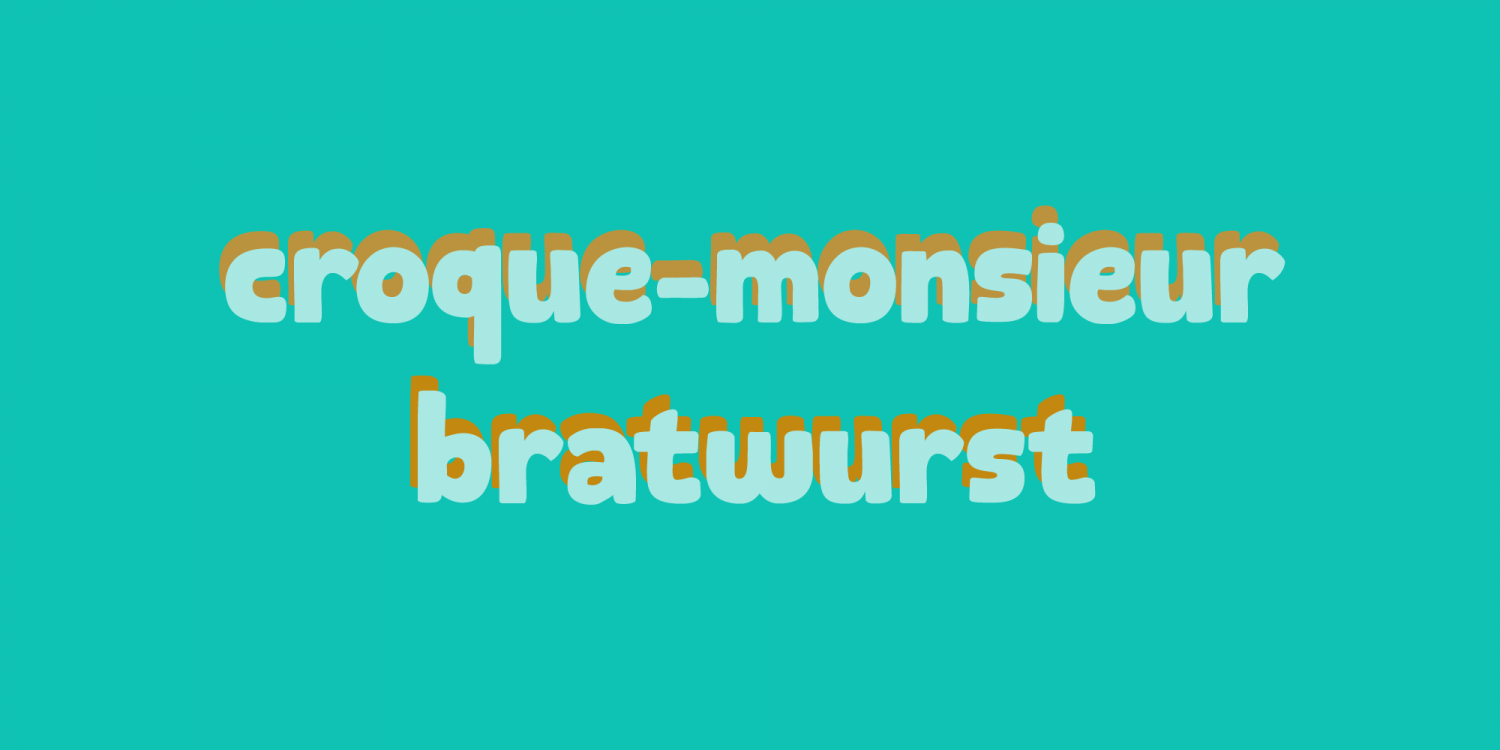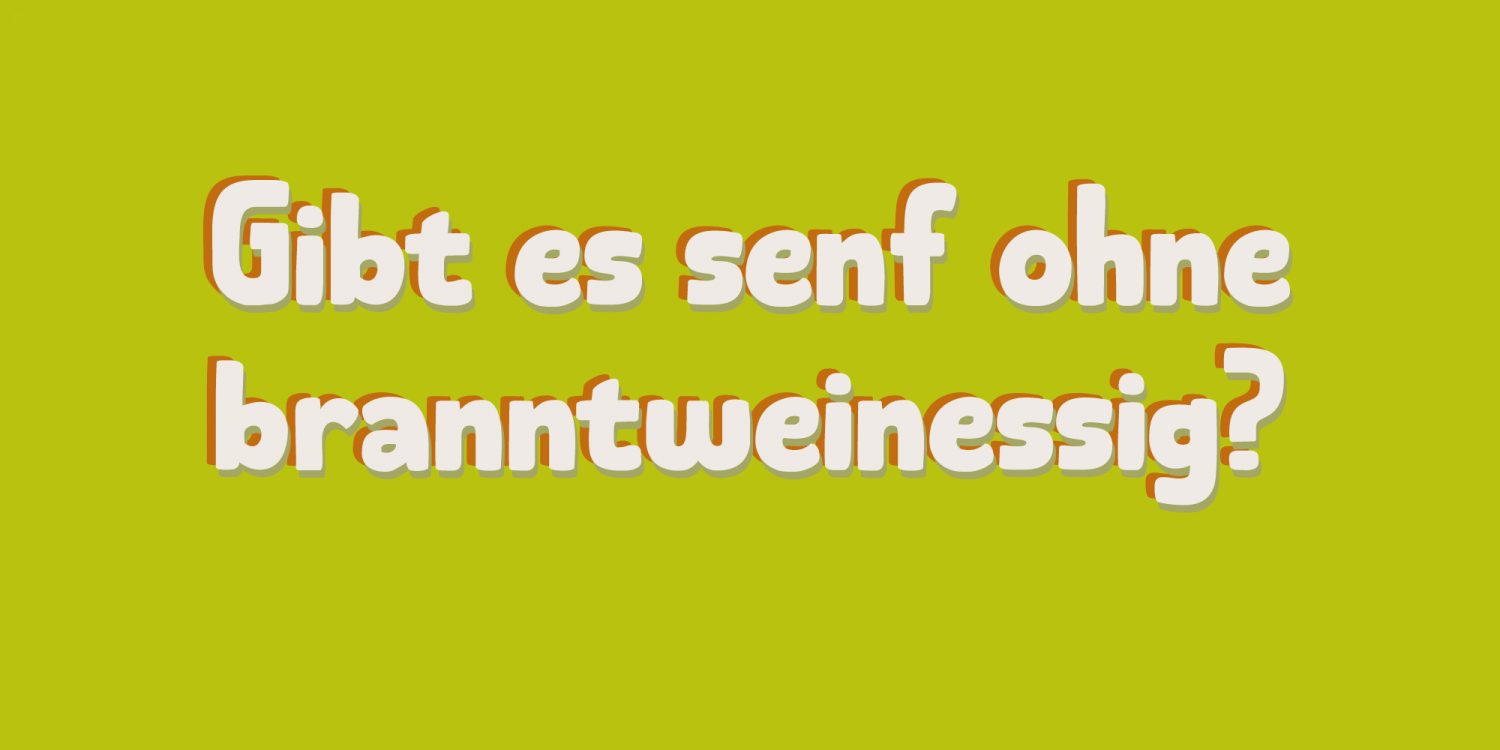
Moutarde is French for mustard. At home we don\’t eat that much mustard, as it is a condiment that goes well with burgers and hotdogs. We eat Asian food a lot, so our hot sauce of choice usually is sambal. Moutarde is a good name for this fine, handmade…